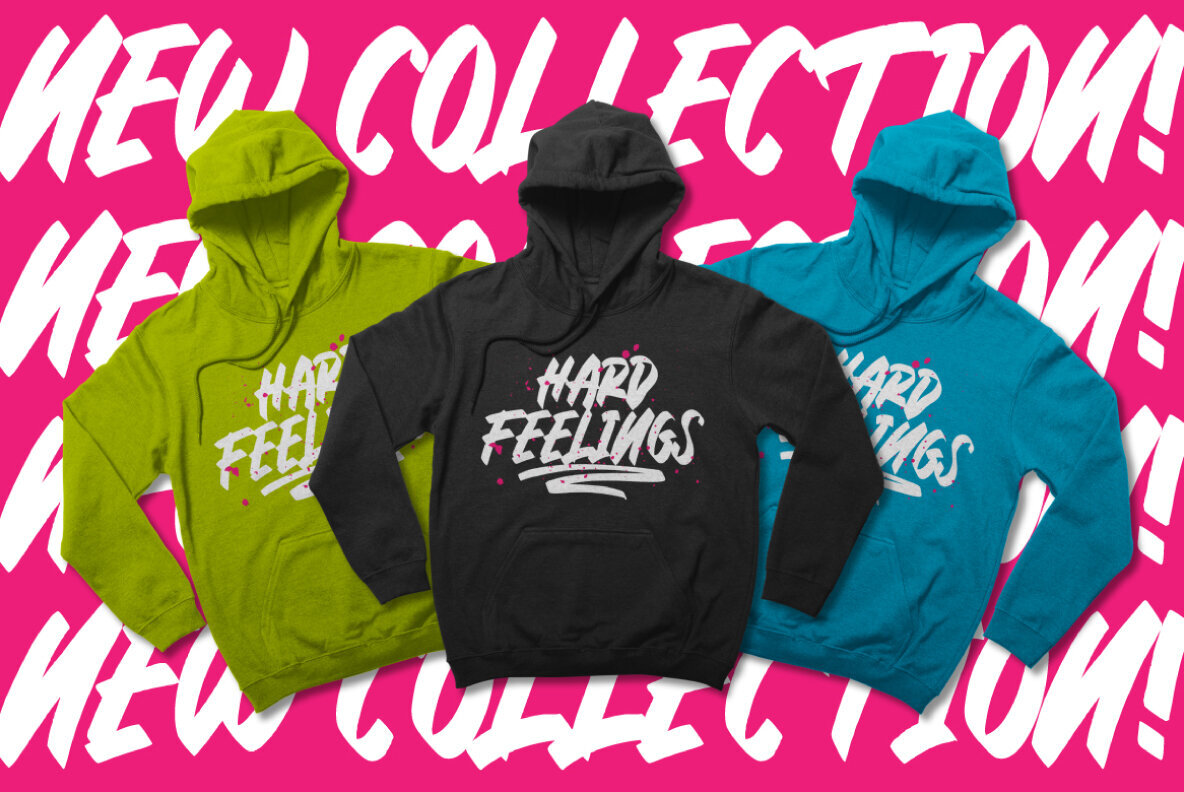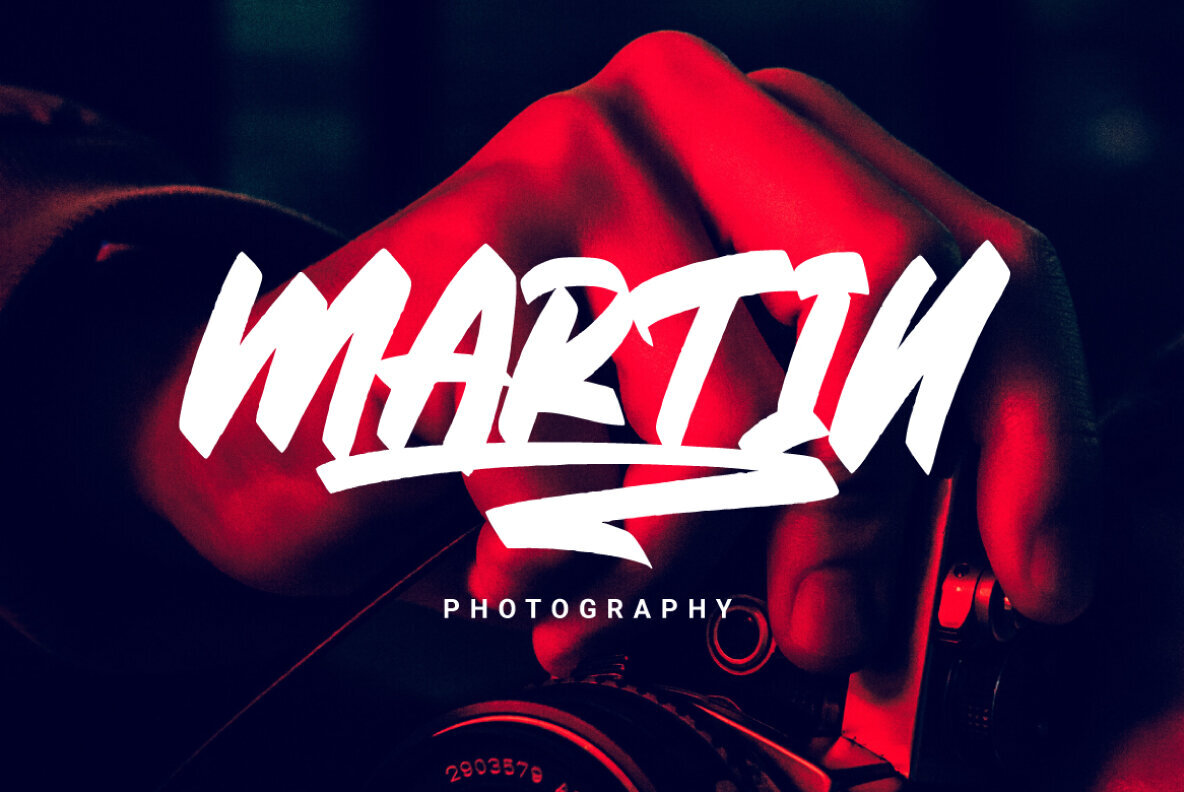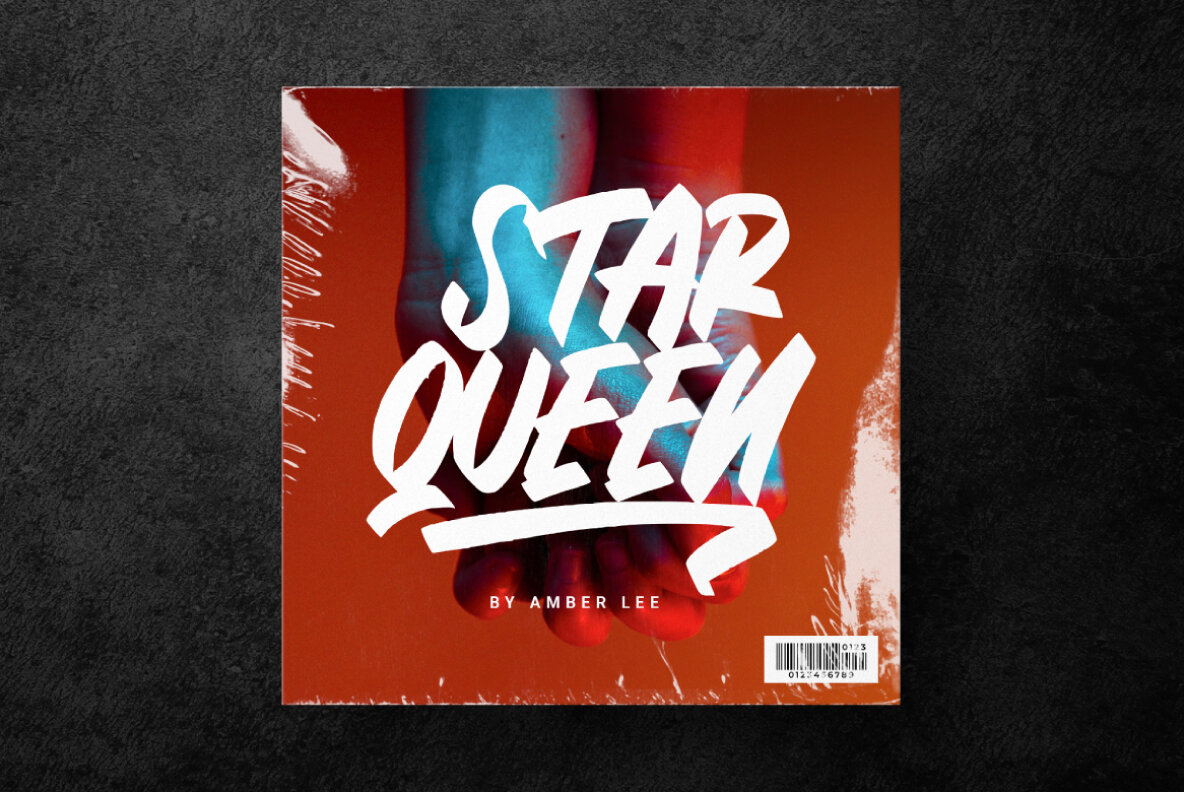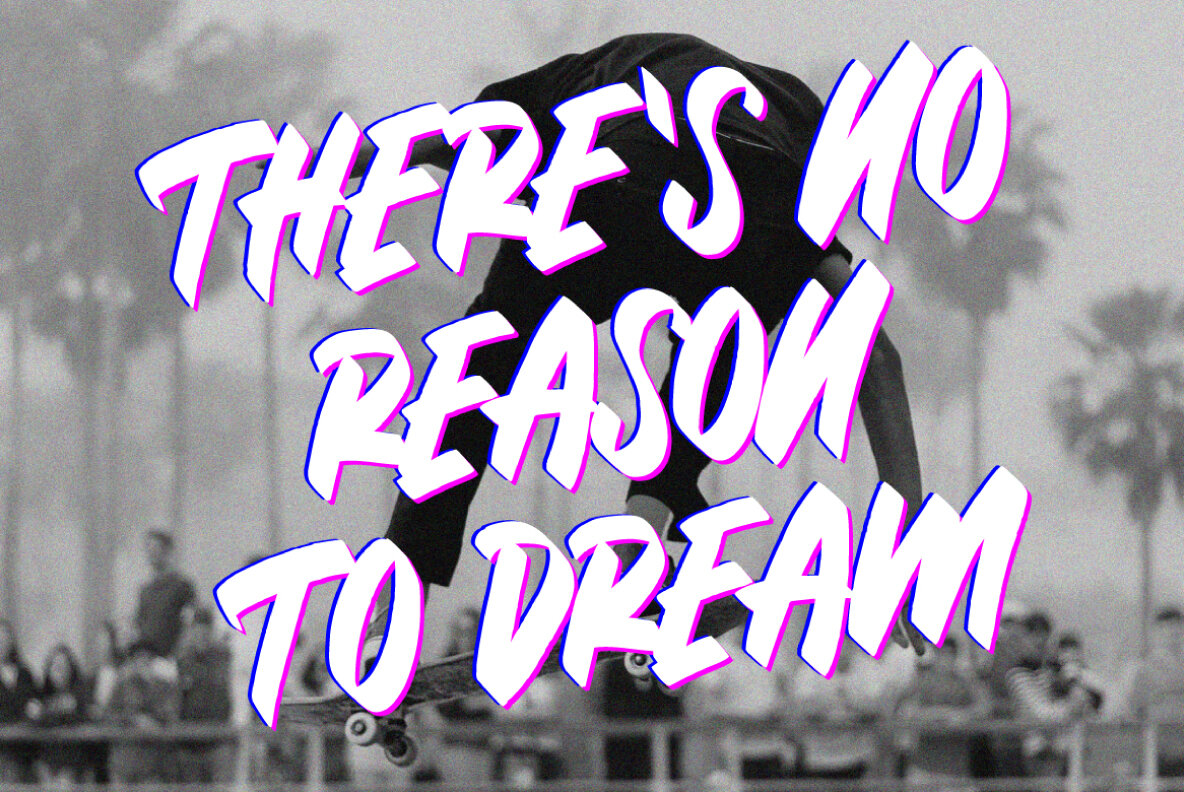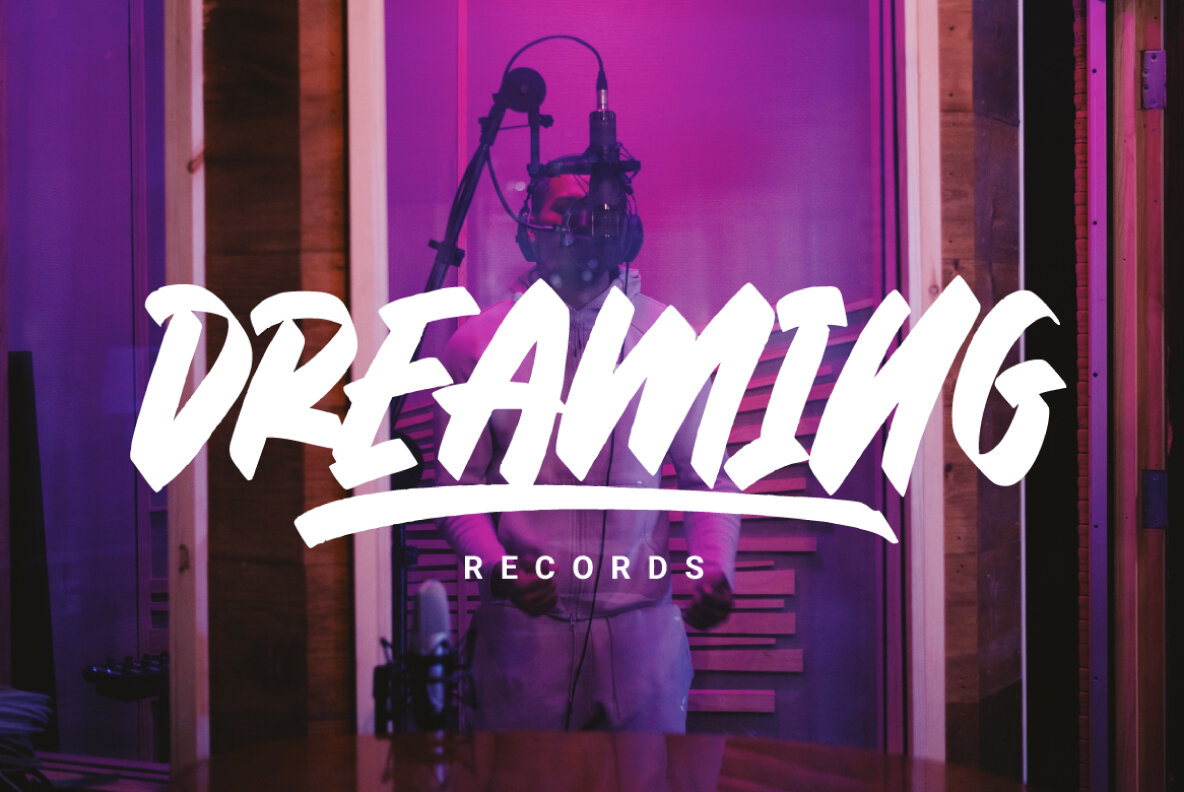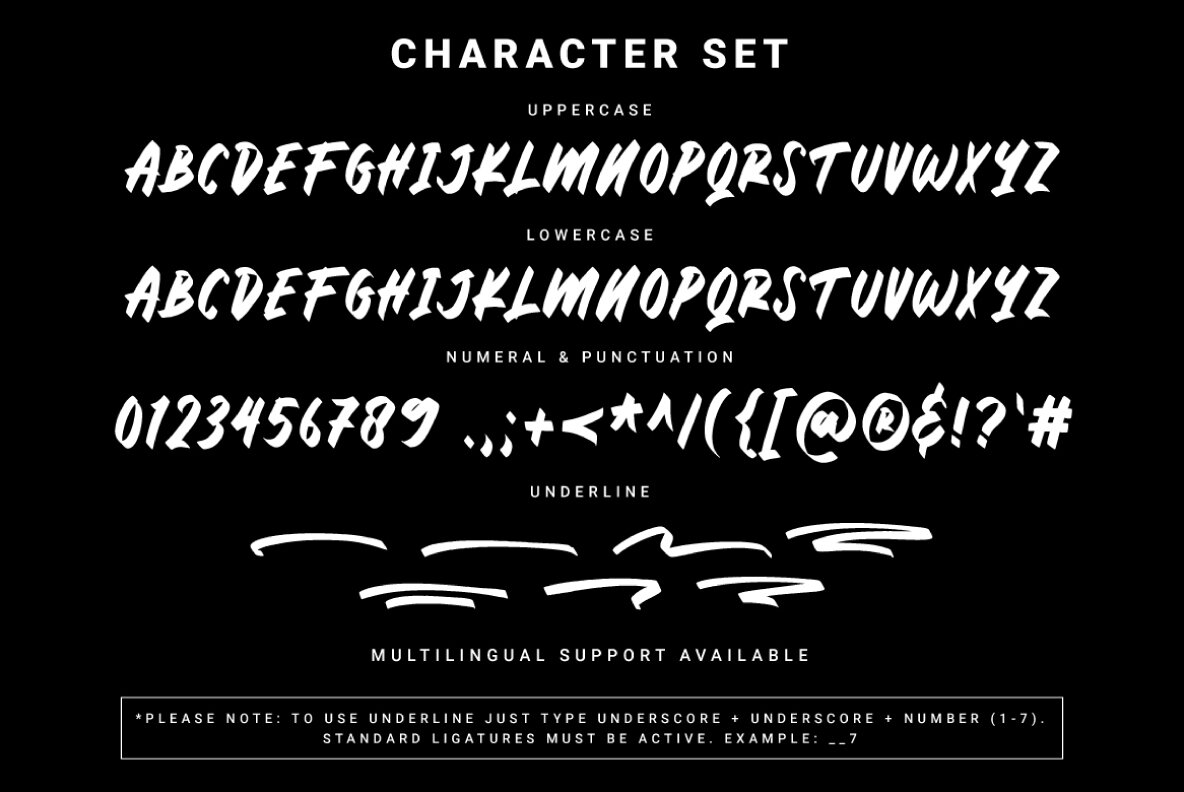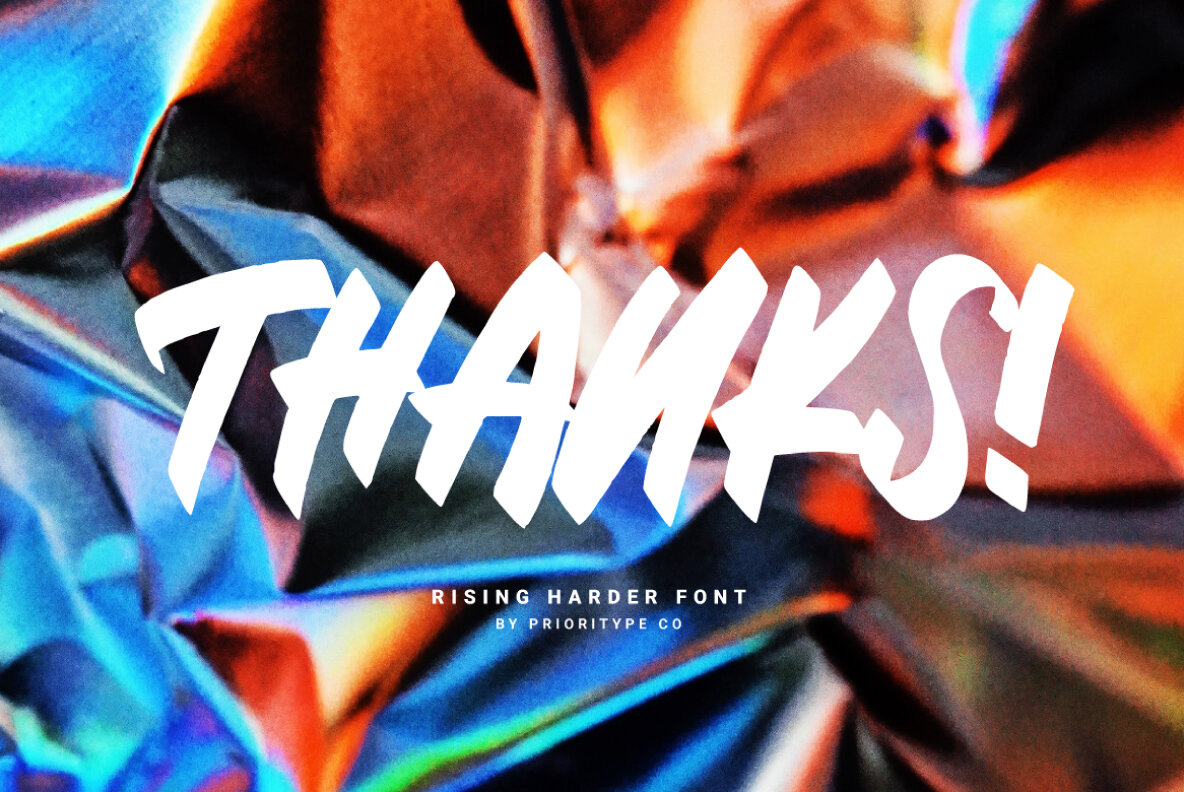
Rising Harder Font
Rising Harder
Rising Harder is a robust handwritten brush font crafted for those seeking a bold and stylish aesthetic. This all-caps font is perfect for a variety of creative projects, including merchandise designs, logos, posters, and covers, where its striking appearance can truly stand out.
Key features of Rising Harder include a complete set of uppercase and lowercase letters, numerals, punctuation, and multilingual support. Additionally, it includes underline options to enhance your design possibilities. Ideal for graphic and digital designers, Rising Harder offers versatility while maintaining a strong visual impact suitable for a range of applications.